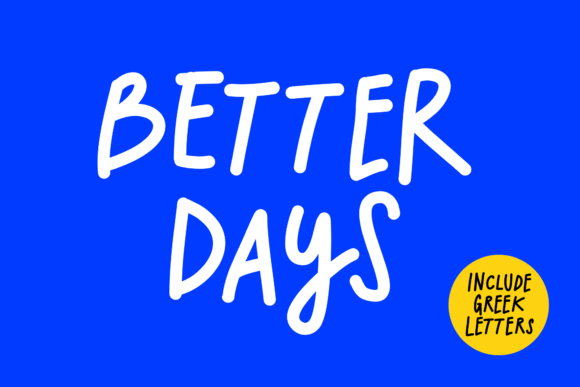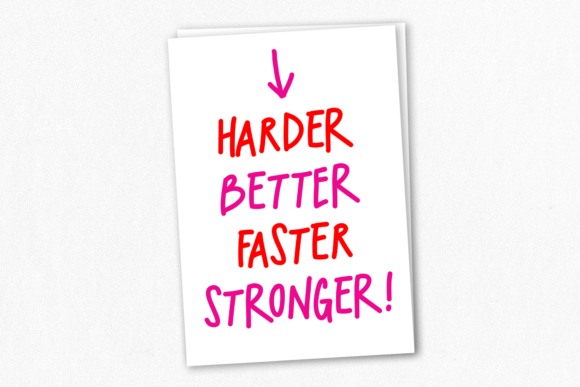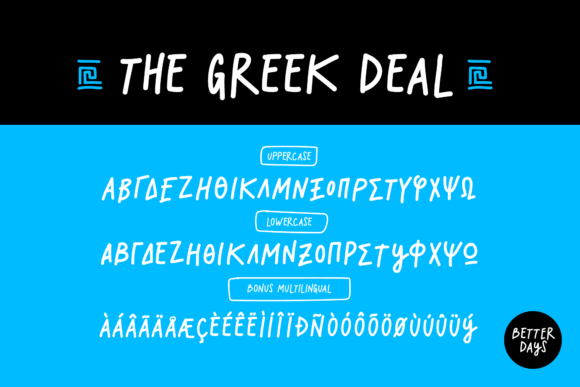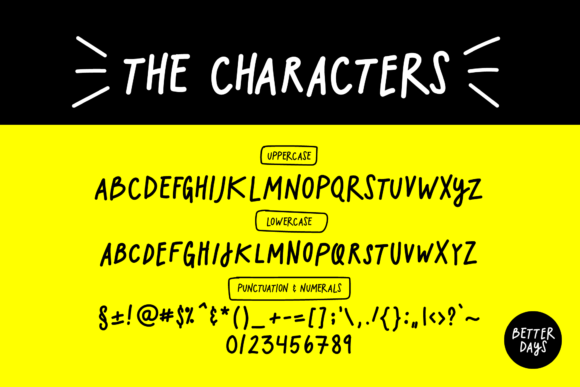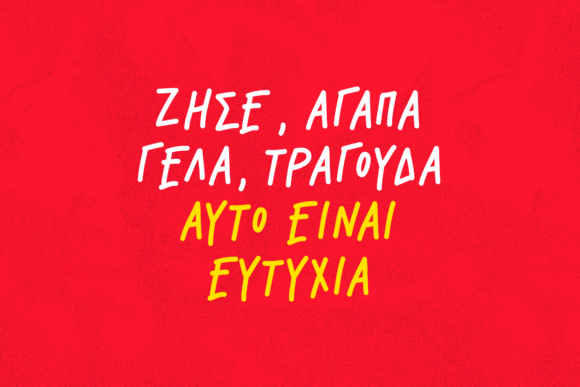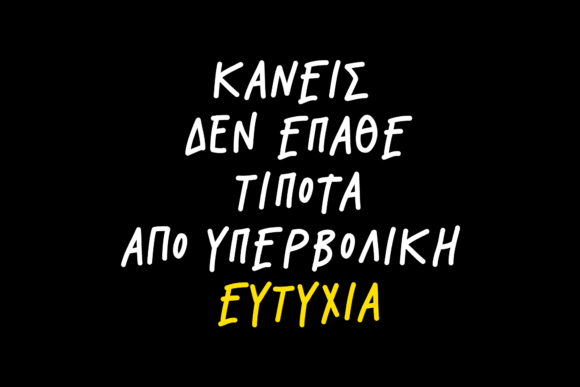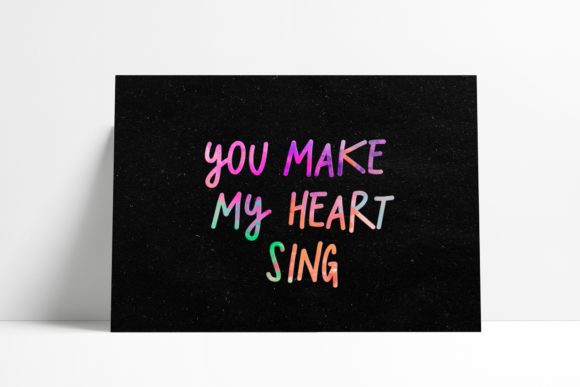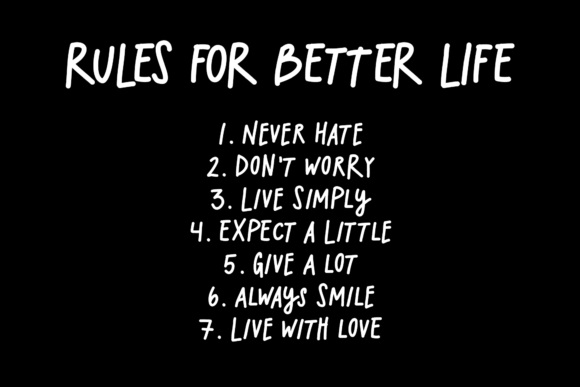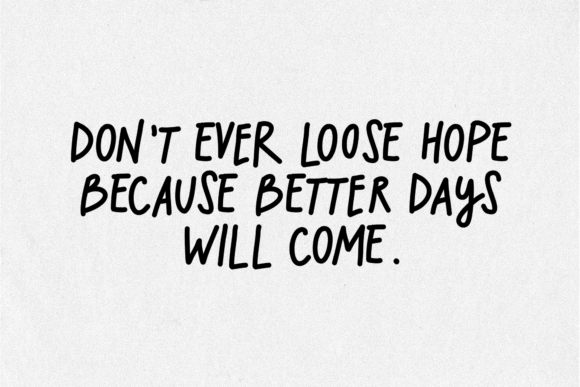
Better Days Font
About Better Days Font
Better Days is a chunky & casual handmade marker font perfect for any crafting project. It will add a one-of-a-kind touch to any design!